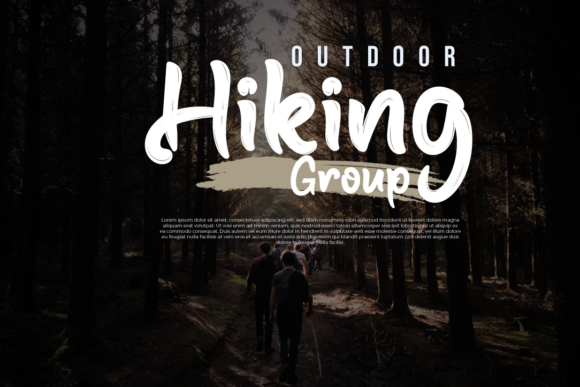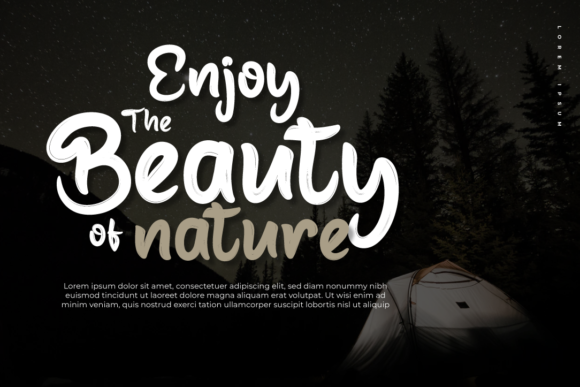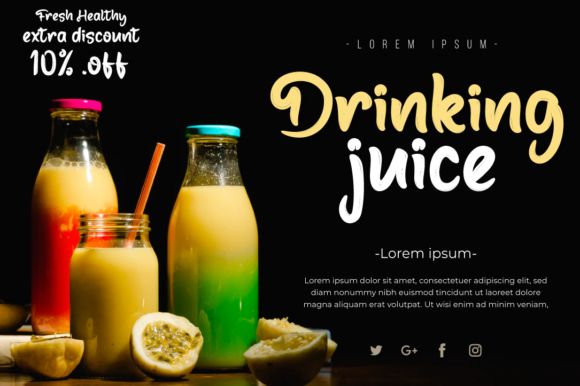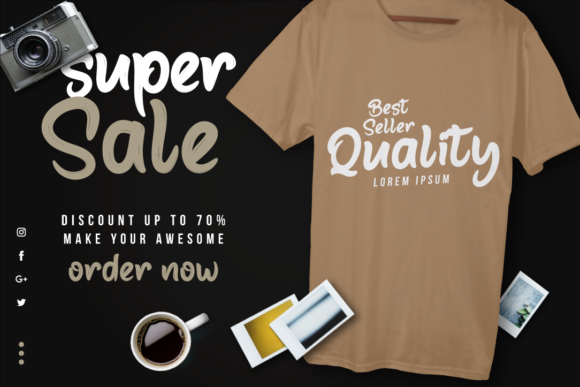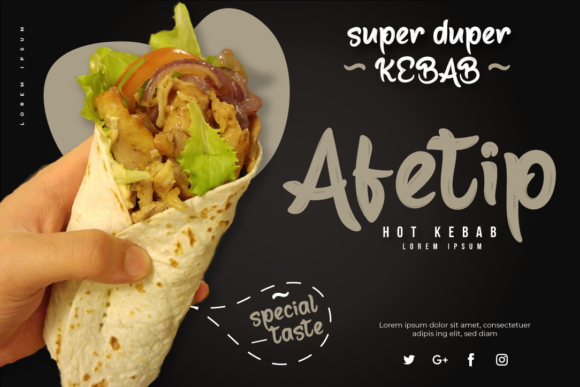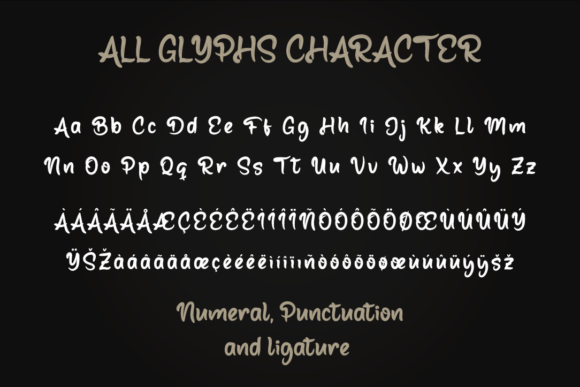
Introduction to Fabled Font
Fabled is a brush handwritten font.
This is the perfect font for making original and outstanding designs This font is great for a wide variety of branding, advertising, posters, banners, packaging, podcasts, outdoor activities, apparel, quotes, beverages and more.
Fabled Font offers exceptional quality and versatility, making it a valuable addition to your design toolkit. Whether you’re creating for personal projects or commercial use, Fabled Font delivers professional results.